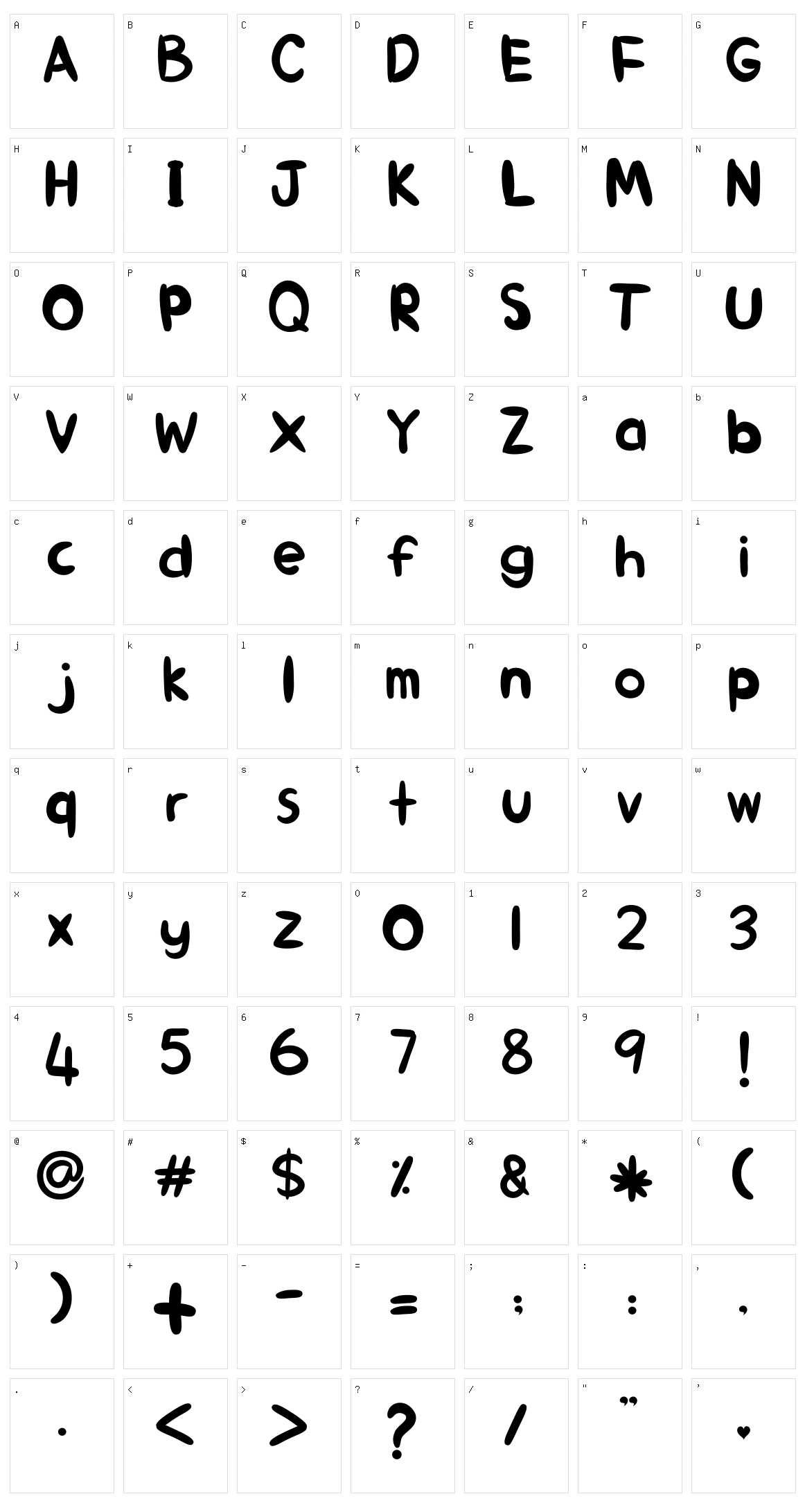
The free font Alin Kid is carefully designed by Haslinda Adnan, showcasing a thoughtful balance of creativity and usability and falls under the Cartoon font style. When you download the ZIP file, it contains only 54.17 KB of font files, making it lightweight and quick to download. Please review the license details below to understand permitted usage and distribution rights. If license information is not available, we recommend using this font for personal projects only or contacting the author directly for commercial usage permissions.